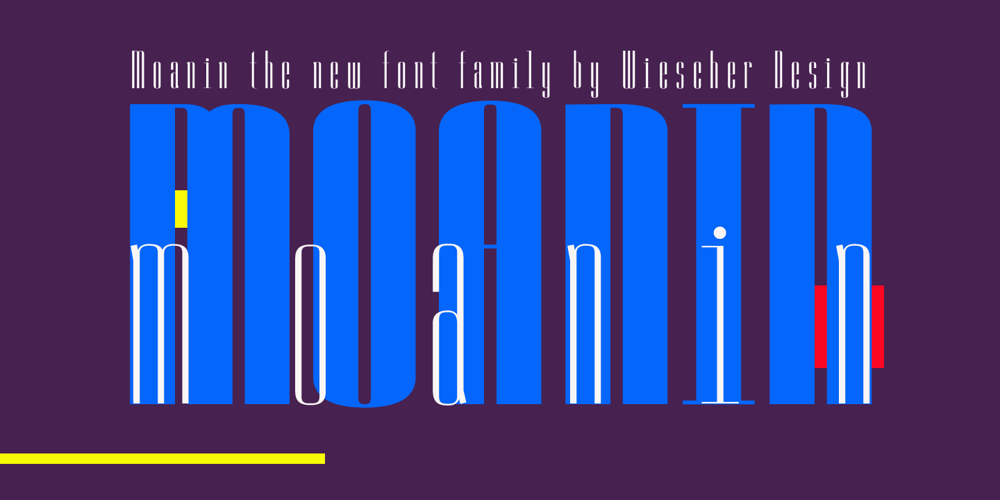
Moanin Font Family was designed by Gert Wiescher and published by Wiescher Design. Moanin contains 28 styles and family package options. »Moanin« is closely related to my »Julienne«, it has the same (388) set of glyphs that is fit for all European languages. Plus normal and old style numbers and a full set of numerators and denominators. The family comes in seven weights from Thin to ExtraBold and of course all with matching italics. Enjoy!